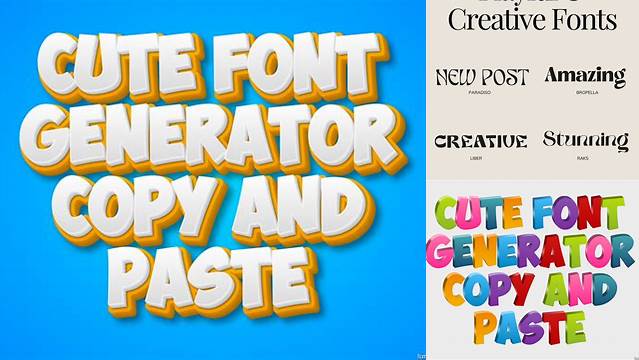
Fonts, Lettering Design: Copy & Paste Like A Pro
Hey guys! Ever wanted to make your social media posts, website, or designs pop with unique and eye-catching fonts and lettering? Well, you've come to the right place! In this ultimate guide, we'll dive deep into the world of fonts, lettering design, and how to easily copy and paste them to create stunning visuals. Let’s get started!
1. Understanding the Basics of Fonts
Okay, so what exactly are fonts? Fonts are basically the style of text you use. Think of them like the clothes your words wear. They come in all shapes and sizes, from elegant serifs to modern sans-serifs, and even funky display fonts. Choosing the right font can dramatically change the look and feel of your project. For example, if you are working on a formal invitation, a classic serif font like Times New Roman or Garamond might be a good choice. On the other hand, for a modern website, a clean sans-serif font like Arial or Helvetica could be more appropriate. Experimenting with different fonts is crucial to finding the perfect one that aligns with your design's message and aesthetic. Don't be afraid to try out different combinations and see what works best. Remember to consider readability as well, especially for large blocks of text. A fancy, decorative font might look great in a headline, but it could be difficult to read in a paragraph. Ultimately, the goal is to choose a font that enhances your design and effectively communicates your message to the audience. There are tons of resources online where you can find free or premium fonts to use in your projects, so start exploring and let your creativity flow!
2. Exploring the Art of Lettering
Now, let's talk about lettering! Unlike fonts, which are pre-designed character sets, lettering is the art of drawing letters. It's all about creating unique, hand-drawn designs. Lettering offers more freedom and flexibility compared to fonts, allowing you to express your creativity in a more personalized way. You can experiment with different styles, embellishments, and flourishes to create a truly one-of-a-kind design. Lettering can be used for a variety of purposes, such as creating logos, posters, invitations, and even personalized gifts. If you're interested in learning lettering, there are many resources available online and in-person. You can find tutorials, workshops, and courses that teach you the basics of lettering techniques, such as brush lettering, calligraphy, and hand-lettering. Start with simple strokes and shapes, and gradually work your way up to more complex designs. Practice is key to mastering the art of lettering, so don't be discouraged if your first attempts don't look perfect. The more you practice, the better you'll become at creating beautiful and unique lettering designs. Consider investing in some basic lettering tools, such as brush pens, markers, and paper, to get started. And don't forget to have fun and let your creativity shine through!
3. The Magic of Font Design
Font design is where the magic happens! It's the process of creating a whole new font from scratch. This is a complex and time-consuming process, but it's also incredibly rewarding. Font designers need to have a deep understanding of typography, anatomy of letters, and design principles. They use specialized software to create each character in the font, ensuring that it is consistent and visually appealing. Font design involves careful consideration of factors such as spacing, kerning, and weight to ensure readability and aesthetic harmony. The process often involves multiple iterations and revisions to refine the design and achieve the desired look and feel. Font designers also need to consider the technical aspects of font creation, such as encoding and file formats, to ensure that the font can be used across different platforms and devices. If you're interested in learning font design, there are many resources available online and in design schools. You can find tutorials, courses, and workshops that teach you the basics of font design principles and techniques. It's a challenging but rewarding field that allows you to contribute to the world of typography and create unique and impactful visual communication tools. Consider experimenting with different font styles and design elements to develop your own unique font design aesthetic. And remember to always prioritize readability and usability in your font designs.
4. Lettering Design: A Deeper Dive
Lettering design goes beyond just drawing letters; it’s about crafting a visual message. It involves understanding composition, hierarchy, and visual balance to create a piece that is both beautiful and effective. Lettering designers often work closely with clients to understand their brand and message, and then create a custom lettering design that reflects their identity. The process typically starts with sketching and brainstorming ideas, followed by refining the design using digital tools. Lettering designers pay close attention to details such as letterforms, spacing, and embellishments to create a cohesive and visually appealing composition. They also consider the context in which the lettering will be used, such as on a logo, poster, or website, to ensure that it is appropriate for the intended audience. Lettering design requires a combination of artistic skill, technical knowledge, and strategic thinking. It's a field that is constantly evolving, with new styles and techniques emerging all the time. If you're interested in pursuing a career in lettering design, consider building a strong portfolio of your work and networking with other designers in the industry. And remember to always stay curious and explore new ideas and techniques to continue to grow as a designer.
5. Copy and Paste Fonts: The Easy Way
Okay, let's get to the practical part! How do you actually copy and paste these cool fonts you see online? There are a few ways. The easiest way is to use a font generator website. These websites allow you to type in your text, choose from a variety of fonts, and then copy and paste the generated text into your social media post, document, or design software. Another way is to use Unicode characters. Unicode is a standard that assigns a unique number to each character, allowing you to copy and paste special characters and symbols across different platforms. You can find Unicode tables online that list all the available characters and their corresponding codes. To use a Unicode character, simply copy the code and paste it into your document or design software. Keep in mind that not all platforms support all Unicode characters, so it's always a good idea to test your text on different devices and browsers to ensure that it displays correctly. Additionally, some platforms may have their own built-in font options that you can use to customize your text. Explore the font settings in your social media platform or design software to see what options are available. And remember to always respect the copyright of fonts and lettering designs. If you're using a font for commercial purposes, make sure you have the necessary license to do so.
6. Using Font Generators Online
Font generators are your best friends when you want to quickly create stylized text. There are tons of font generator websites available online, offering a wide range of fonts and styles to choose from. To use a font generator, simply type in your text, select the font you want, and then copy and paste the generated text into your desired platform. Many font generators also allow you to customize the text further by adding effects such as shadows, outlines, and gradients. Some font generators even offer more advanced features such as kerning and ligatures, allowing you to fine-tune the appearance of your text. When choosing a font generator, consider factors such as the number of fonts available, the ease of use, and the customization options. Some font generators are free to use, while others require a subscription or one-time payment. It's always a good idea to read reviews and compare different font generators before making a decision. And remember to always respect the terms of use of the font generator and credit the creator if required. Font generators can be a great way to add some visual flair to your text without having to spend hours designing your own fonts. However, it's important to use them responsibly and avoid overusing them, as this can make your text look cluttered and unprofessional.
7. Copy-Pasting Lettering: Is It Possible?
Can you copy and paste lettering directly? Well, not really in the same way you copy and paste fonts. Since lettering is hand-drawn, it's usually saved as an image. So, you'll need to copy and paste the image itself. This can be done easily by right-clicking on the image and selecting "Copy Image," then pasting it into your document or design software. However, keep in mind that the quality of the image may degrade if you resize it too much. To ensure the best quality, it's always a good idea to use high-resolution images for your lettering designs. Another option is to convert the lettering image into a vector graphic. Vector graphics are made up of mathematical equations rather than pixels, which means that they can be scaled to any size without losing quality. You can use vector graphics software such as Adobe Illustrator or Inkscape to convert your lettering image into a vector graphic. This will allow you to resize and edit the lettering without worrying about pixelation. And remember to always respect the copyright of lettering designs and obtain permission from the artist before using them for commercial purposes. Copying and pasting lettering images can be a quick and easy way to add some visual interest to your designs, but it's important to do it responsibly and ethically.
8. Fonts for Social Media
Social media is all about grabbing attention! Using unique fonts is a great way to do that. When choosing fonts for social media, it's important to consider the platform you're using. Some platforms have restrictions on the types of fonts that can be used, while others offer more flexibility. For example, Instagram only allows you to use a limited number of fonts in your bio, while Facebook allows you to use a wider range of fonts in your posts and ads. It's also important to consider the overall aesthetic of your brand and choose fonts that align with your brand identity. If your brand is modern and minimalist, you might choose a clean sans-serif font. If your brand is more traditional and elegant, you might choose a classic serif font. And remember to always prioritize readability, especially on smaller screens. Choose fonts that are easy to read and avoid using too many different fonts in your social media posts. A good rule of thumb is to stick to two or three fonts at most. You can use font generators or Unicode characters to create stylized text for your social media posts. However, be careful not to overdo it, as this can make your posts look cluttered and unprofessional. And remember to always respect the terms of use of the social media platform and avoid using fonts that are prohibited or restricted.
9. Lettering Design for Branding
Lettering design plays a crucial role in branding. A well-designed logo can help a brand stand out from the competition and create a lasting impression on customers. When designing a logo, it's important to consider the brand's values, target audience, and overall message. The lettering should be consistent with the brand's identity and convey its personality. For example, a luxury brand might choose an elegant and sophisticated lettering style, while a playful brand might choose a more whimsical and fun lettering style. Lettering can also be used to create other branding materials such as business cards, letterheads, and websites. Consistency is key when it comes to branding, so it's important to use the same lettering style across all of your branding materials. This will help to create a cohesive and recognizable brand identity. When choosing a lettering designer, look for someone who has experience in branding and a strong understanding of typography and design principles. Be sure to review their portfolio and ask for references. And remember to always protect your brand's logo and lettering design by registering a trademark. This will prevent others from using your brand's identity without your permission. Lettering design is an investment in your brand's future, so it's important to do it right.
10. Free Fonts vs. Premium Fonts
Let's talk about free fonts versus premium fonts. Free fonts are a great option for personal projects or when you're on a tight budget. There are many websites that offer free fonts for download. However, it's important to be aware of the licensing terms of free fonts. Some free fonts may only be used for personal use, while others may be used for commercial purposes. Be sure to read the license agreement carefully before using a free font in your project. Premium fonts, on the other hand, are typically higher quality and offer more features and customization options. They also come with a commercial license, which allows you to use them for any purpose, including commercial projects. Premium fonts can be purchased from font foundries or online marketplaces. When choosing between free and premium fonts, consider the quality of the font, the licensing terms, and the intended use. If you're using the font for a commercial project, it's generally a good idea to invest in a premium font to ensure that you have the necessary license and that the font is of high quality. However, if you're on a tight budget, there are many great free fonts available that can be used for personal projects. Ultimately, the choice between free and premium fonts depends on your individual needs and preferences.
11. Font Pairing Techniques
Font pairing is the art of combining two or more fonts in a way that is visually appealing and harmonious. A well-chosen font pairing can enhance the overall design and make it more effective. When pairing fonts, it's important to consider the contrast between the fonts. You want to choose fonts that are different enough to create visual interest, but not so different that they clash. A common technique is to pair a serif font with a sans-serif font. For example, you might pair a serif font like Times New Roman with a sans-serif font like Arial. Another technique is to pair a bold font with a light font. This can create a sense of hierarchy and draw attention to certain elements of the design. It's also important to consider the mood and tone of the fonts. Choose fonts that are appropriate for the overall message and aesthetic of the design. For example, if you're designing a website for a law firm, you might choose fonts that are professional and authoritative. If you're designing a website for a children's toy store, you might choose fonts that are playful and fun. Experiment with different font pairings to see what works best for your design. And remember to always prioritize readability and avoid using too many different fonts in your design.
12. Lettering Styles: Calligraphy
Calligraphy is a beautiful and elegant lettering style that has been around for centuries. It involves using special pens and inks to create flowing and decorative letterforms. Calligraphy is often used for formal occasions such as weddings, graduations, and awards ceremonies. It can also be used to create personalized gifts and artwork. There are many different styles of calligraphy, each with its own unique characteristics. Some popular styles include Copperplate, Spencerian, and Gothic. Learning calligraphy takes time and practice, but it is a rewarding skill that can be used to create stunning and unique designs. To get started with calligraphy, you will need to invest in some basic calligraphy supplies such as calligraphy pens, inks, and paper. There are many online tutorials and workshops that can teach you the basics of calligraphy techniques. Start with simple strokes and shapes, and gradually work your way up to more complex letterforms. Practice is key to mastering calligraphy, so be patient and persistent. And remember to have fun and let your creativity flow! Calligraphy is a timeless art form that can be used to create beautiful and meaningful designs.
13. Hand Lettering Techniques
Hand lettering is a versatile and creative art form that allows you to create unique and personalized lettering designs. Unlike calligraphy, which uses special pens and inks, hand lettering is typically done with regular pens, pencils, or markers. Hand lettering can be used for a variety of purposes, such as creating logos, posters, invitations, and social media graphics. There are many different hand lettering techniques that you can use to create different styles and effects. Some popular techniques include brush lettering, faux calligraphy, and chalkboard lettering. To get started with hand lettering, you will need some basic supplies such as pens, pencils, markers, and paper. There are many online tutorials and workshops that can teach you the basics of hand lettering techniques. Start with simple letterforms and practice creating different strokes and shapes. Experiment with different styles and techniques to find what works best for you. And remember to have fun and let your creativity flow! Hand lettering is a great way to express your personal style and create unique and eye-catching designs.
14. Modern Lettering Trends
Modern lettering is all about pushing boundaries and experimenting with new styles and techniques. Some popular modern lettering trends include geometric lettering, script lettering, and watercolor lettering. Geometric lettering involves using geometric shapes to create letterforms. Script lettering is a flowing and cursive style of lettering that is often used for invitations and logos. Watercolor lettering involves using watercolor paints to create colorful and textured letterforms. To stay up-to-date on the latest modern lettering trends, follow lettering artists and designers on social media and attend lettering workshops and conferences. Experiment with different styles and techniques to find what resonates with you. And don't be afraid to break the rules and create your own unique style. Modern lettering is all about expressing your creativity and pushing the boundaries of traditional lettering techniques.
15. Vintage Font Styles
Vintage font styles are a popular choice for designs that evoke a sense of nostalgia and history. These fonts often feature distressed textures, ornate details, and classic letterforms. Some popular vintage font styles include Art Deco, Victorian, and Western. Art Deco fonts are characterized by their geometric shapes and bold lines. Victorian fonts are known for their ornate details and elaborate embellishments. Western fonts evoke the spirit of the American West with their rustic and rugged letterforms. To use vintage fonts effectively, pair them with other vintage-inspired design elements such as antique illustrations, aged paper textures, and muted color palettes. Consider the historical context of the font and use it in a way that is appropriate for the design. Vintage fonts can add a touch of character and authenticity to your designs.
16. Designing Logos with Fonts
Fonts are a crucial element in logo design. A well-chosen font can help to communicate the brand's personality and values. When designing a logo with fonts, it's important to consider the readability, scalability, and versatility of the font. The font should be easy to read at different sizes and on different screens. It should also be scalable so that it can be used on a variety of branding materials without losing quality. And it should be versatile enough to be used in different contexts and applications. Choose a font that is unique and memorable, but also appropriate for the brand's identity. Experiment with different font pairings and letter spacing to create a logo that is visually appealing and effective. And remember to always protect your logo by registering a trademark.
17. Creating Posters with Lettering
Lettering can be used to create stunning and eye-catching posters. When designing a poster with lettering, it's important to consider the composition, hierarchy, and visual balance of the design. The lettering should be the focal point of the poster and should be easy to read from a distance. Use different sizes and weights of lettering to create a sense of hierarchy and draw attention to certain elements of the poster. Experiment with different lettering styles and techniques to create a unique and visually appealing design. Consider the overall message and aesthetic of the poster and choose lettering that is appropriate for the intended audience. And remember to always proofread your poster carefully before printing it.
18. Typography Tips for Beginners
For beginners, understanding typography can seem daunting, but here are a few essential tips to get you started. First, focus on readability. Choose fonts that are easy to read and avoid using too many different fonts in your design. Second, pay attention to kerning and tracking. Kerning is the spacing between individual letters, while tracking is the overall spacing between all the letters in a word or phrase. Adjust these settings to improve the readability and visual appeal of your text. Third, learn about font pairing. Experiment with different font combinations to find what works best for your design. Fourth, use hierarchy to guide the reader's eye. Use different sizes, weights, and styles of fonts to create a sense of hierarchy and draw attention to important information. And fifth, practice, practice! The more you work with typography, the better you will become at understanding its nuances and using it effectively.
19. Font Licensing Explained
Font licensing can be confusing, but it's important to understand the terms of use before using a font in your project. Most fonts are protected by copyright, which means that you need a license to use them. There are different types of font licenses, each with its own set of restrictions and permissions. Some licenses allow you to use the font for personal use only, while others allow you to use it for commercial purposes. Some licenses restrict the number of users who can use the font, while others allow unlimited users. Be sure to read the license agreement carefully before using a font in your project to ensure that you are complying with the terms of use. If you are unsure about the licensing terms of a font, contact the font foundry or designer for clarification. And remember to always respect the copyright of fonts and obtain the necessary licenses before using them in your projects.
20. The Psychology of Fonts
Did you know fonts have a psychology behind them? The fonts you use can evoke different emotions and associations in the viewer. Serif fonts, for example, are often associated with tradition, authority, and sophistication. Sans-serif fonts are often associated with modernity, cleanliness, and simplicity. Script fonts are often associated with elegance, romance, and creativity. Display fonts are often associated with fun, playfulness, and excitement. When choosing fonts for your project, consider the emotions and associations that you want to evoke in the viewer. Choose fonts that are appropriate for the overall message and aesthetic of your design. And remember that the psychology of fonts can vary depending on the cultural context and individual preferences.
21. Font File Formats (OTF, TTF, WOFF)
Understanding font file formats like OTF, TTF, and WOFF is essential for designers. TTF (TrueType Font) is an older format that is widely supported, while OTF (OpenType Font) is a more modern format that offers more advanced features such as ligatures and alternate characters. WOFF (Web Open Font Format) is a font format specifically designed for use on the web. It is compressed to reduce file size and improve loading times. When choosing a font file format, consider the intended use of the font and the compatibility with different platforms and devices. OTF is generally the preferred format for print design, while WOFF is the preferred format for web design. TTF is a good choice for situations where compatibility is a primary concern. And remember to always use high-quality font files to ensure that your text looks sharp and clear.
22. How to Install Fonts on Your Computer
Knowing how to install fonts on your computer is a basic skill for any designer or creative professional. The process varies slightly depending on your operating system. On Windows, you can install a font by right-clicking on the font file and selecting "Install." Alternatively, you can copy the font file to the Fonts folder in the Windows directory. On macOS, you can install a font by double-clicking on the font file and selecting "Install Font" in the Font Book application. You can also drag and drop the font file into the Font Book application. After installing a font, it should be available for use in all of your applications. If you are having trouble installing a font, consult the documentation for your operating system or the font vendor. And remember to restart your applications after installing a font to ensure that it is properly loaded.
23. Creating Font Combinations for Websites
When creating font combinations for websites, prioritize readability and visual hierarchy. Choose a primary font for body text that is easy to read and a secondary font for headings and other design elements that is visually distinct and complementary. Consider the overall tone and style of the website and choose fonts that are appropriate for the intended audience. Use a font pairing tool or consult a typography guide to find fonts that work well together. Avoid using too many different fonts on a single website, as this can create a cluttered and unprofessional look. And remember to test your font combinations on different devices and browsers to ensure that they render correctly.
24. Using Fonts in Video Editing
Using fonts in video editing can add a professional touch to your videos. Choose fonts that are easy to read and appropriate for the tone and style of your video. Use different fonts and font sizes to create visual hierarchy and draw attention to important information. Consider the background color and lighting when choosing font colors. Use animation and effects to add visual interest to your text. Avoid using too much text on screen at once, as this can be distracting for the viewer. And remember to proofread your text carefully before exporting your video.
25. Legal Considerations for Font Usage
Understanding the legal considerations for font usage is crucial to avoid copyright infringement. Most fonts are protected by copyright, which means that you need a license to use them. Read the font license agreement carefully to understand the terms of use. Some licenses allow you to use the font for personal use only, while others allow you to use it for commercial purposes. Some licenses restrict the number of users who can use the font, while others allow unlimited users. If you are unsure about the licensing terms of a font, contact the font foundry or designer for clarification. And remember to always respect the copyright of fonts and obtain the necessary licenses before using them in your projects.
26. Font Resources for Designers
There are tons of great font resources for designers available online. Some popular resources include Google Fonts, Adobe Fonts, and MyFonts. Google Fonts offers a wide selection of free fonts that can be used for both personal and commercial projects. Adobe Fonts is a subscription service that provides access to thousands of high-quality fonts. MyFonts is an online marketplace where you can purchase fonts from independent font designers. When choosing a font resource, consider the quality of the fonts, the licensing terms, and the ease of use. And remember to always credit the font designer when using their fonts in your projects.
27. Custom Font Creation: Is it for You?
Custom font creation is a complex and time-consuming process, but it can be a rewarding experience for designers who want to create a unique and personalized typeface. Creating a custom font requires a deep understanding of typography, letterforms, and design principles. You will also need specialized software such as FontLab Studio or Glyphs. If you are considering creating a custom font, start by sketching out your ideas and researching different font styles. Then, learn the basics of font design and typography. Finally, invest in the necessary software and start creating your own custom font. Custom font creation is not for everyone, but it can be a great way to express your creativity and create a truly unique typeface.
28. The Future of Font Technology
The future of font technology is constantly evolving with new innovations and advancements. Variable fonts are a new type of font that allows designers to adjust the weight, width, and other characteristics of a font on the fly. This can save file size and improve performance on the web. Color fonts are another emerging technology that allows fonts to include multiple colors and gradients. This can add visual interest and creativity to typography. As technology continues to evolve, we can expect to see even more innovative font technologies emerge in the future.
29. Accessible Font Choices
Making accessible font choices is essential for ensuring that your designs are inclusive and usable by everyone. Choose fonts that are easy to read and have good contrast with the background color. Avoid using overly decorative or stylized fonts, as these can be difficult to read for people with disabilities. Use appropriate font sizes and line spacing to improve readability. Consider using a font specifically designed for people with dyslexia. And remember to test your designs with people with disabilities to ensure that they are accessible.
30. Optimizing Fonts for Web Performance
Optimizing fonts for web performance is crucial for ensuring that your website loads quickly and efficiently. Use web-safe fonts or font formats such as WOFF2 to reduce file size. Host fonts locally on your server rather than relying on external font services. Use font loading strategies such as font-display to control how fonts are loaded and rendered on the page. And remember to test your website's performance regularly to identify and address any font-related issues.